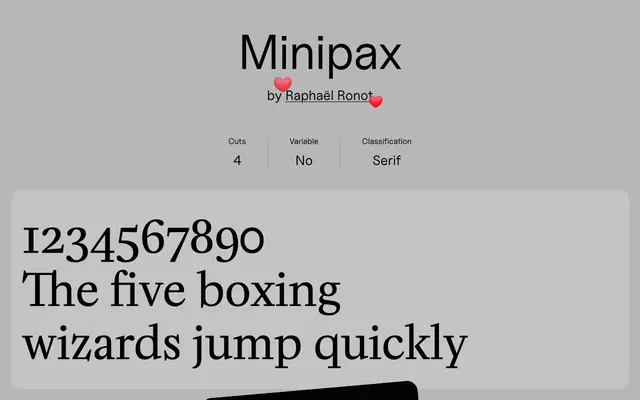
Minipax
A four-weight serif by Raphaël Ronot, released under the SIL Open Font License for free commercial and personal use.
Designed by Raphaël Ronot, Minipax is a serif typeface available in four cuts and distributed freely under the SIL Open Font License 1.1. The licence permits commercial use, modification and redistribution, making it a practical option for projects with limited budgets. No variable or italic versions are offered.
Classified as Serif by the foundry; the name and single-weight display nature suggest a decorative or headline-oriented serif, though limited page detail prevents further subcategory precision.